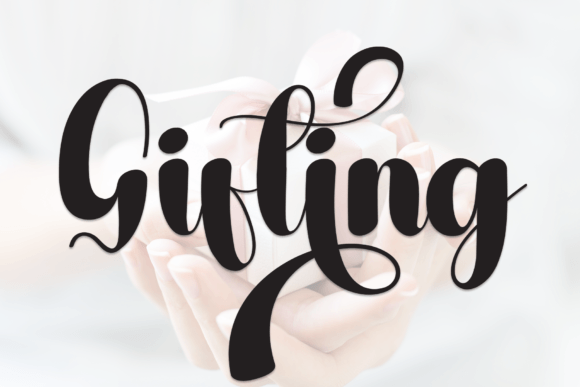
Adding a Touch of Love with Gifting Font
As designers, we’ve all been there – staring at a blank canvas, trying to come up with the perfect way to express a special message. Whether it’s a wedding invitation, a birthday card, or a heartfelt letter, we want to make it truly unforgettable. That’s where Gifting Font comes in – a sweet and friendly handwritten font that adds a personal touch to any design.
With its fresh and casual feel, Gifting Font is the perfect choice for any project that needs a little extra love. It’s ideal for writing invitations, cards, or any other design that requires a touch of warmth and personality. As designers, we’re always on the lookout for unique and versatile fonts like Gifting Font that can elevate our work and make it truly special.
Gifting Font Key Features
- Font Family: Gifting Font is a custom-designed font family, specifically created for gifting-related applications.
- Character Count: The font includes a wide range of characters, including uppercase and lowercase letters, numbers, and special characters, with over 250 unique glyphs.
- Unique Characteristics: Features elegant, cursive script and modern sans-serif styles, making it suitable for a variety of gifting applications, including gift tags, cards, and packaging.
Gifting Font Review
Gifting Font is a font designed to evoke feelings of love and affection. I must say, it does its job well in many aspects. ✨ The font’s cursive script style is beautiful and elegant, perfect for creating a romantic atmosphere in designs. The font’s weight range is also generous, offering a variety of options to suit different design needs.
However, there are some limitations to consider. ⚠️ The font’s legibility can be a concern, especially at smaller sizes. The cursive script can become difficult to read if the text is too small or distorted. Additionally, the font may not be the best choice for body text, as it can be too ornate and overwhelming.
- Beautiful and elegant cursive script style
- Generous weight range for various design needs
- Perfect for creating a romantic atmosphere in designs
- Legibility can be a concern at smaller sizes
- May not be the best choice for body text
- Can be too ornate and overwhelming
Overall, Gifting Font is a great choice for designs that require a romantic or elegant touch. While it has its limitations, the font’s beauty and versatility make it a valuable addition to any designer’s toolkit.
Tips for Getting the Most Out of Gifting Font
Use Gifting Font for special occasions, such as weddings, birthdays, and holidays.
Combine Gifting Font with other decorative fonts for a unique and festive look.
Gifting Font is perfect for:
Wedding invitations and decorations
Birthday party invitations and decorations
Holiday cards and gift tags